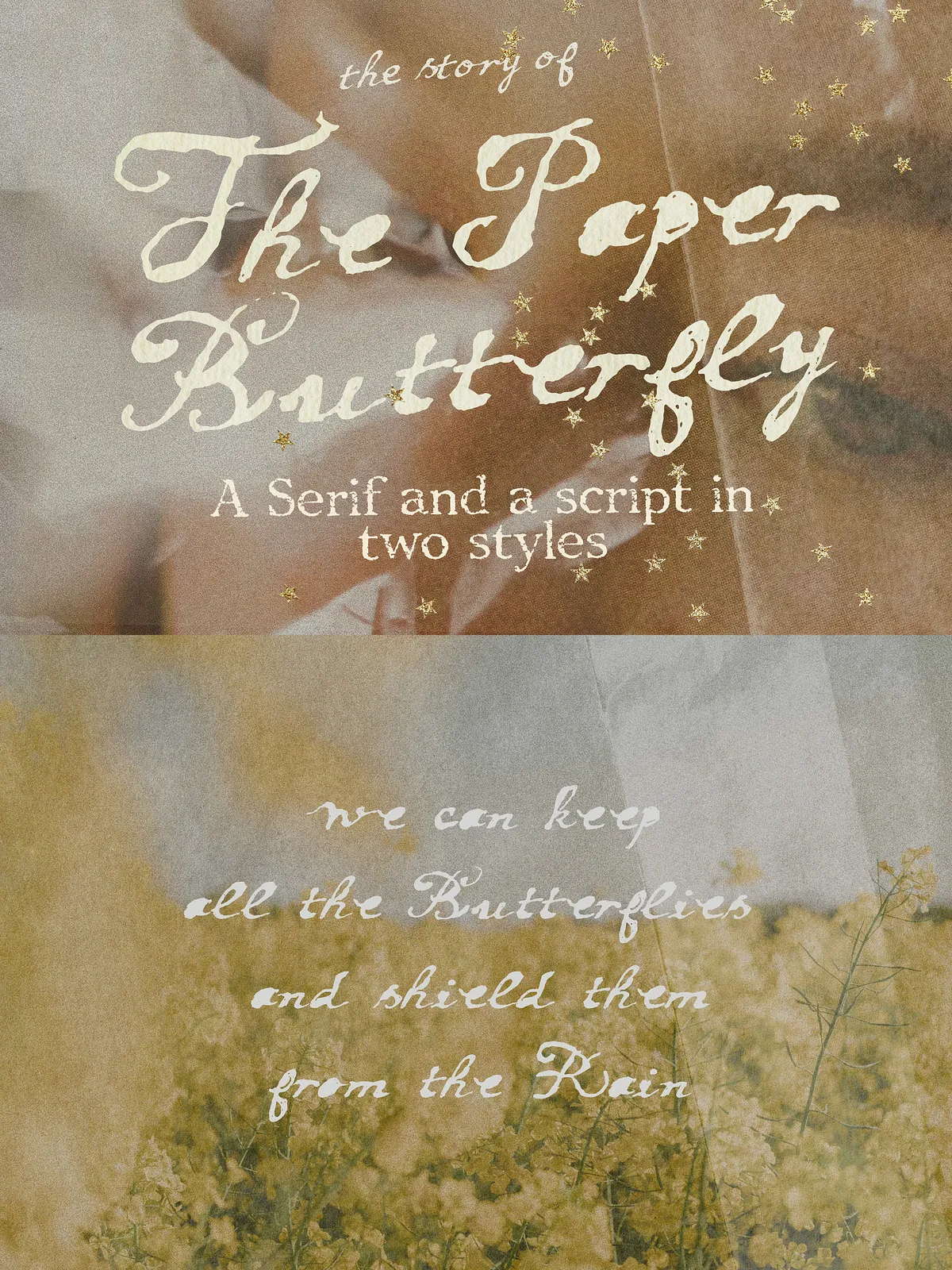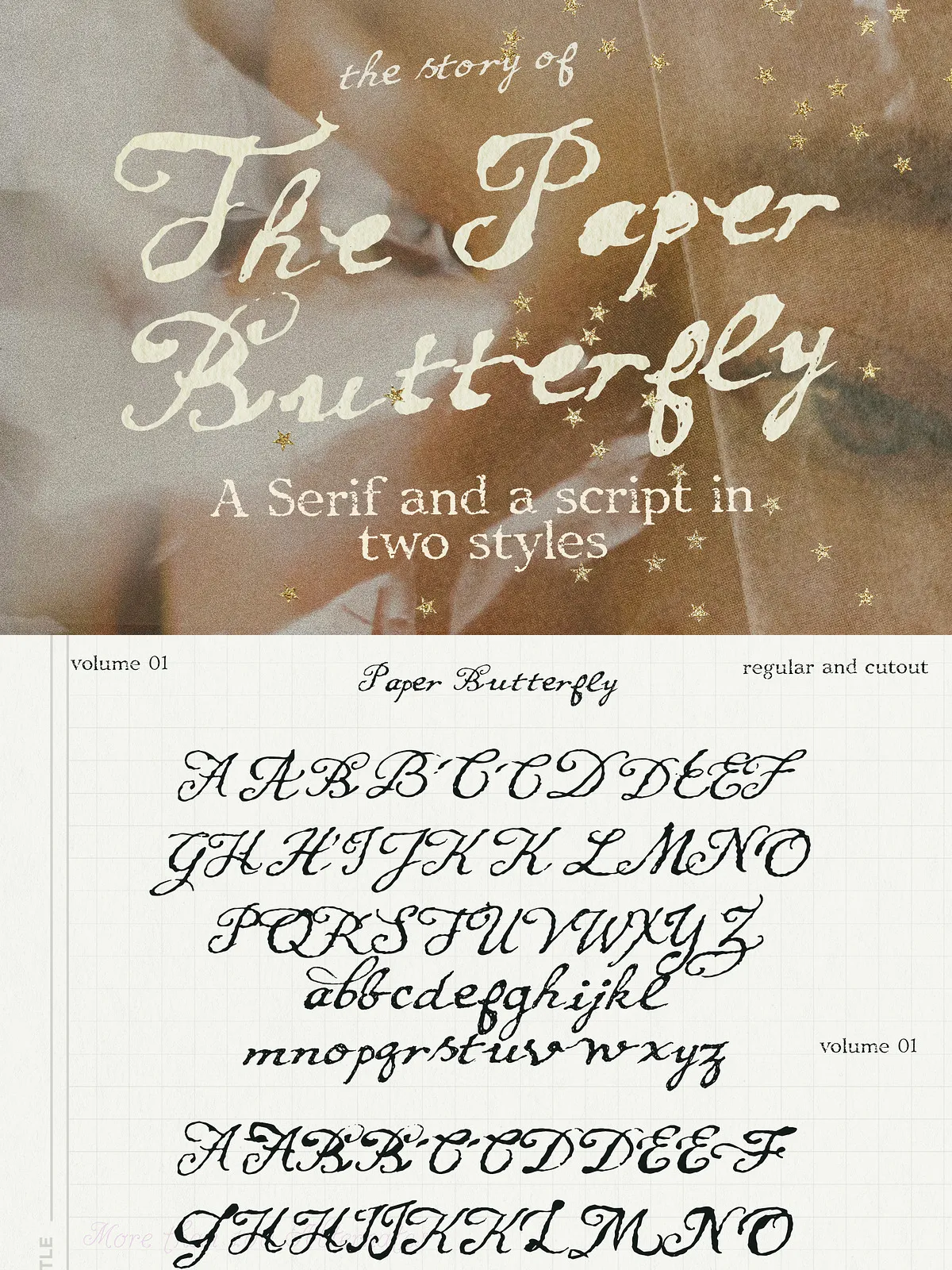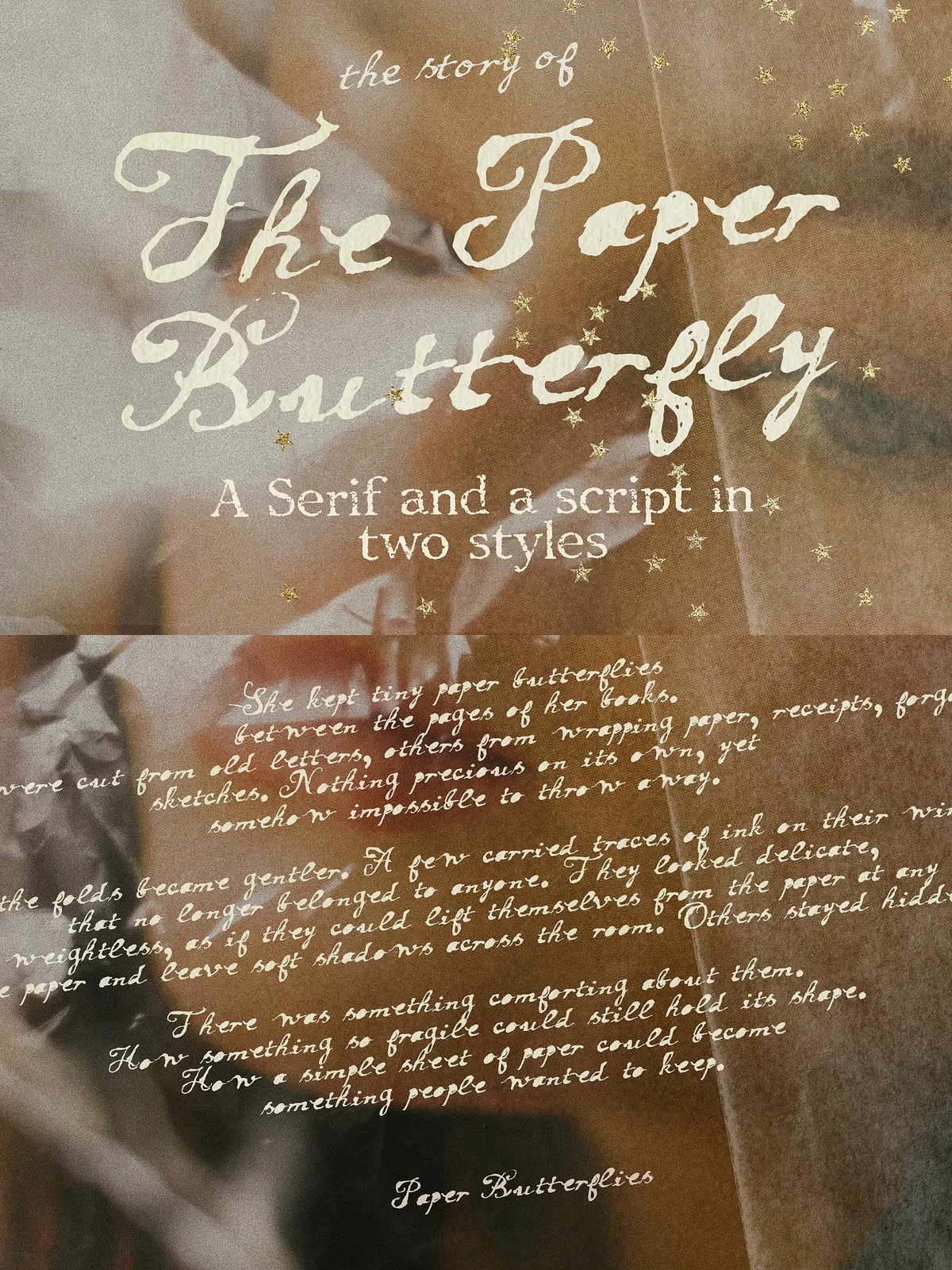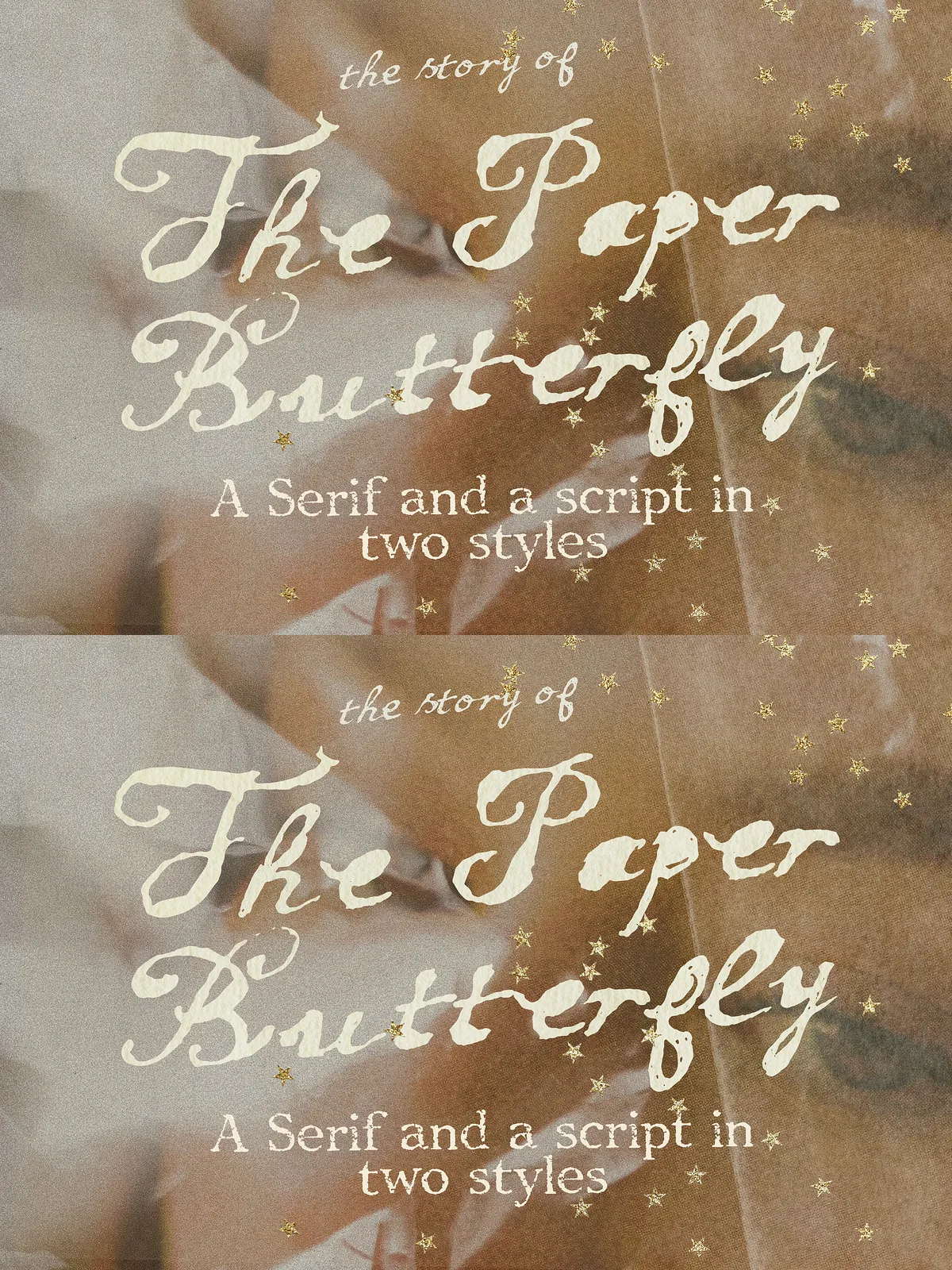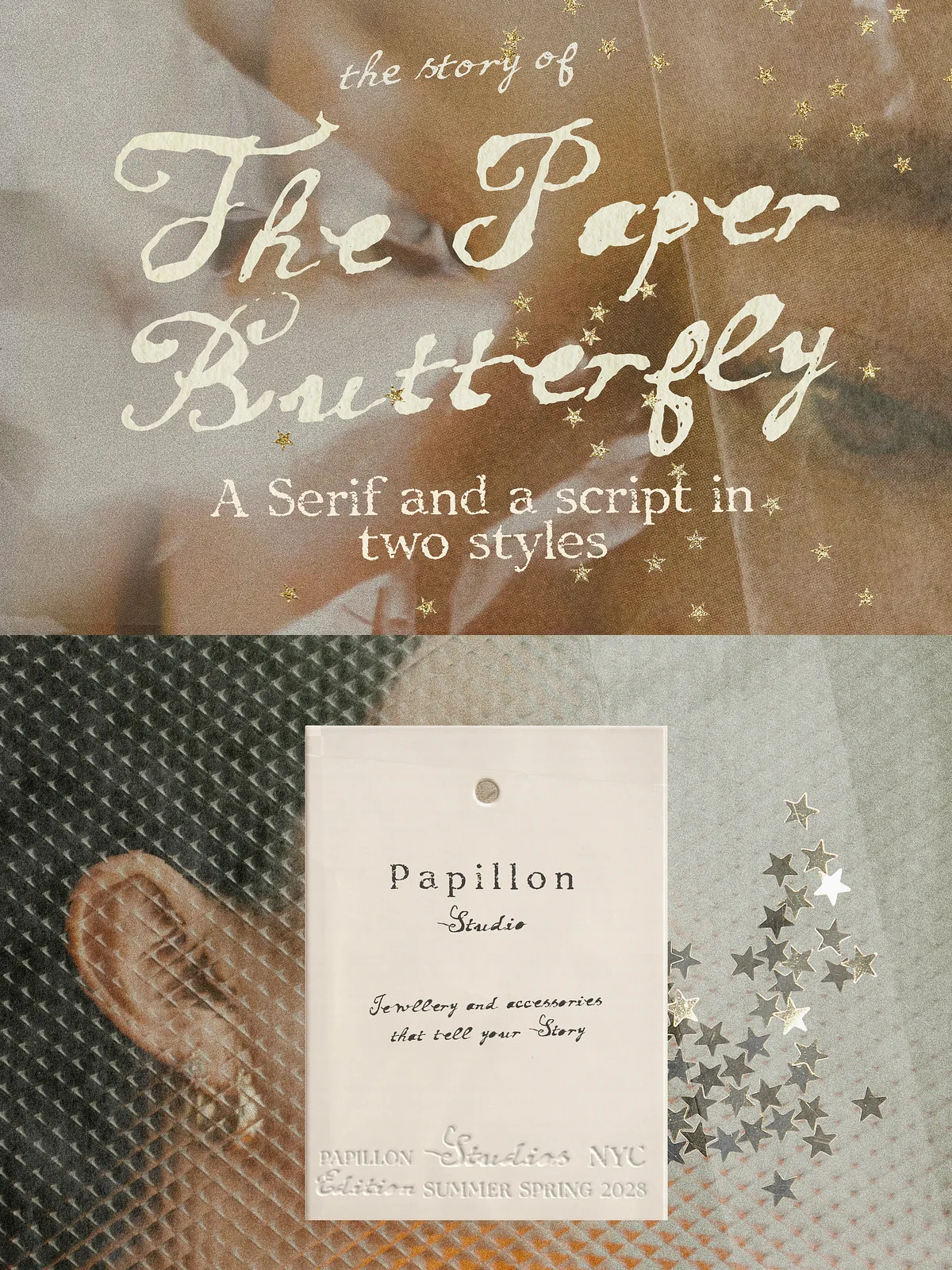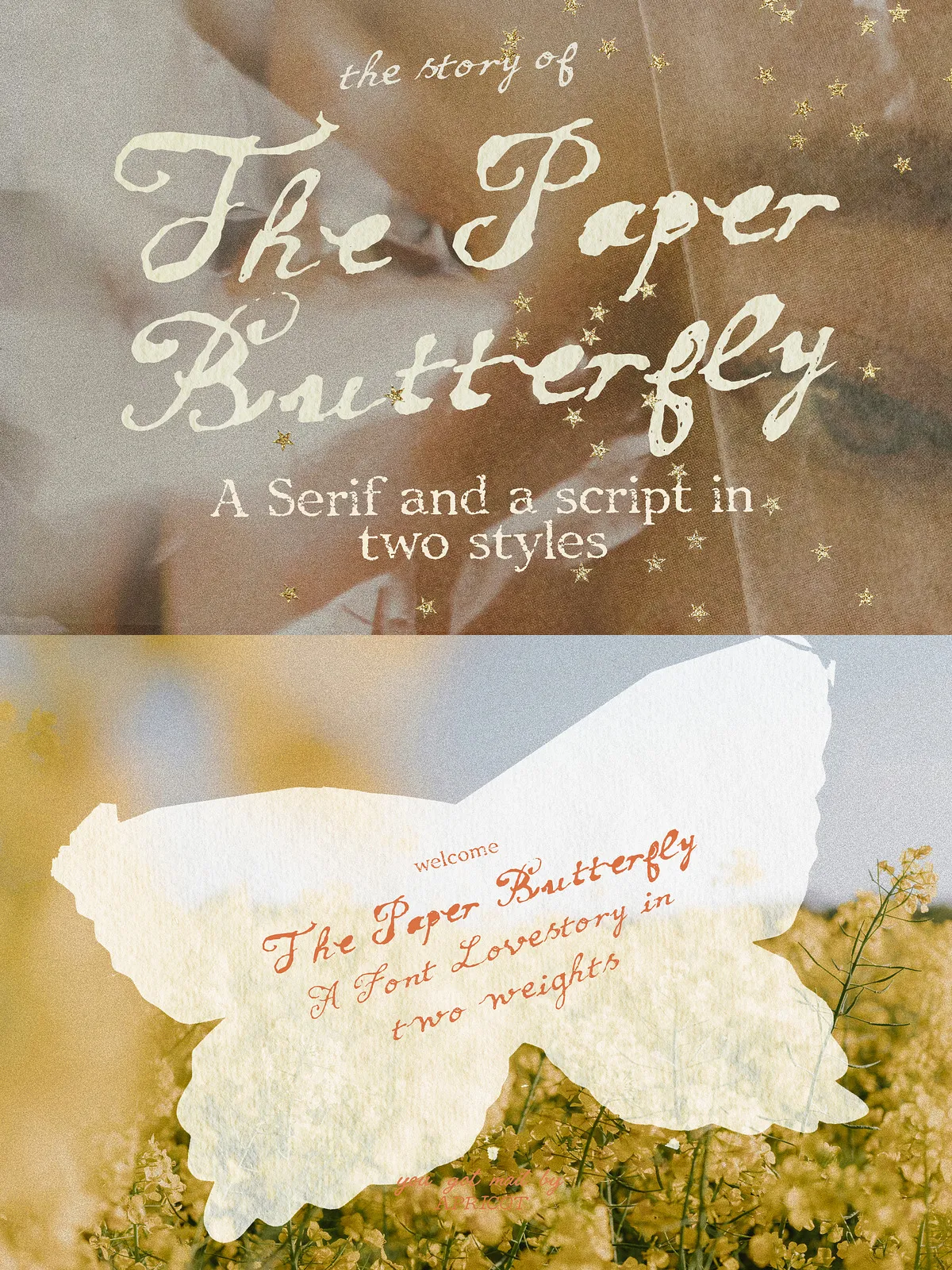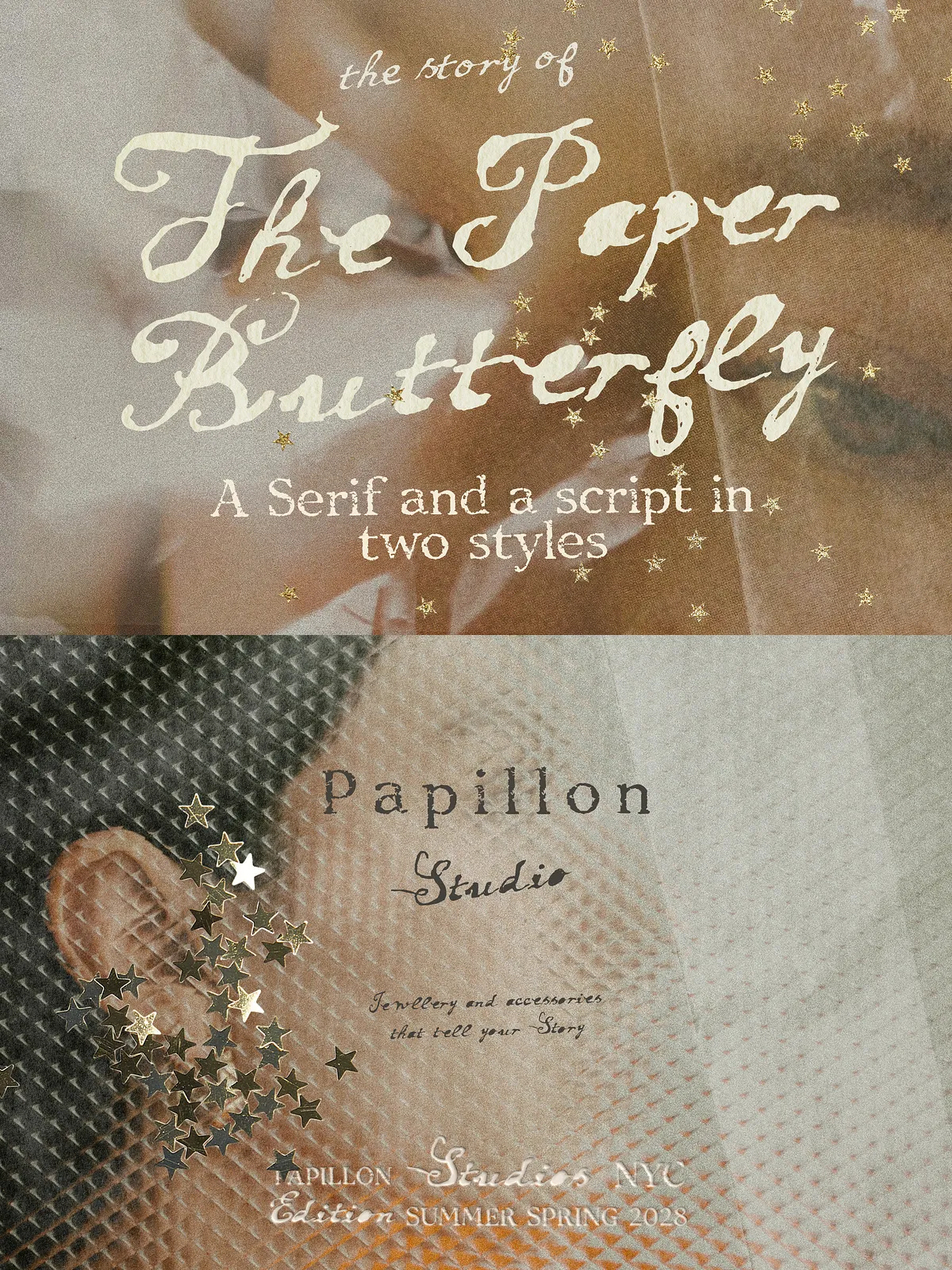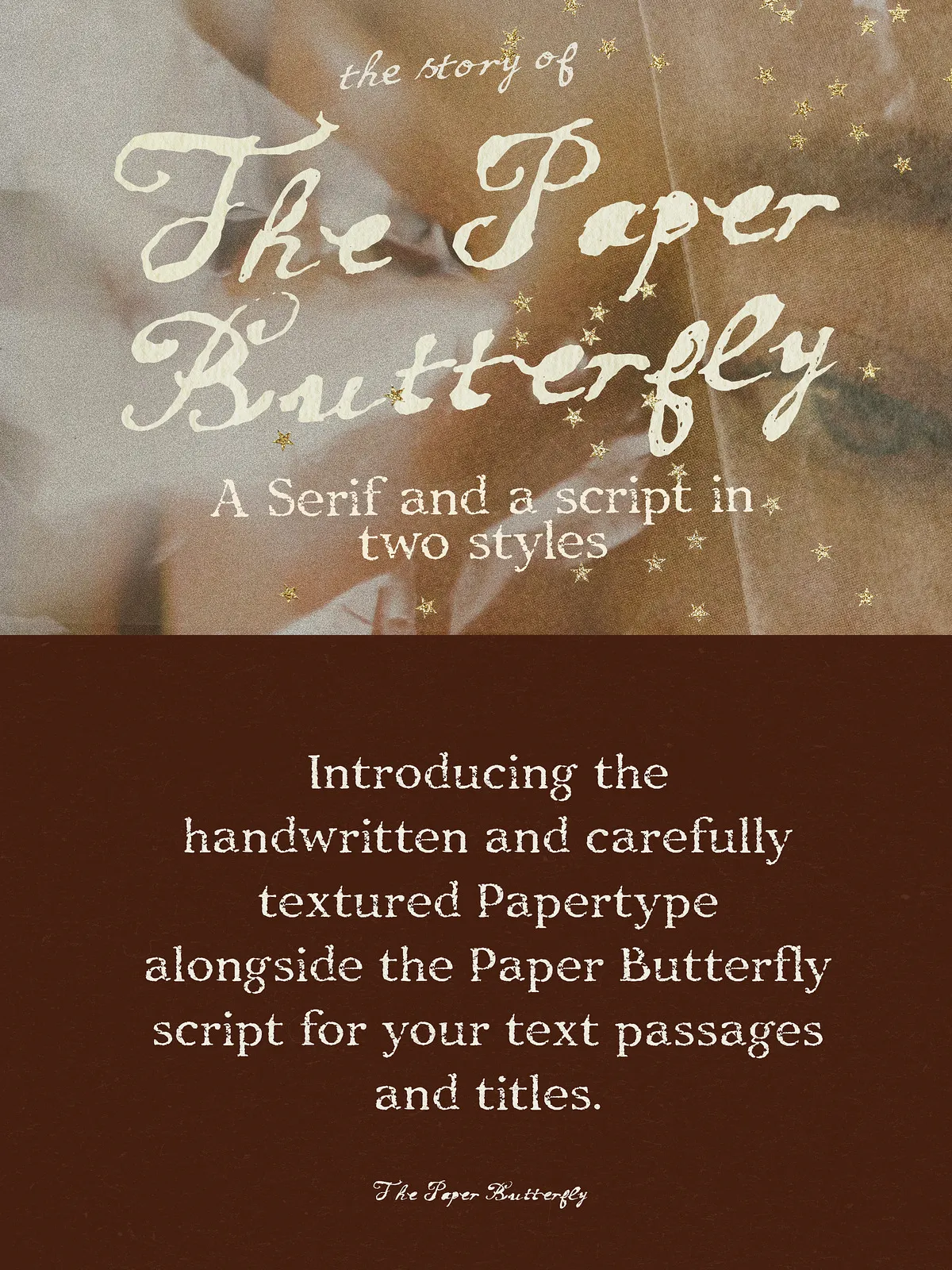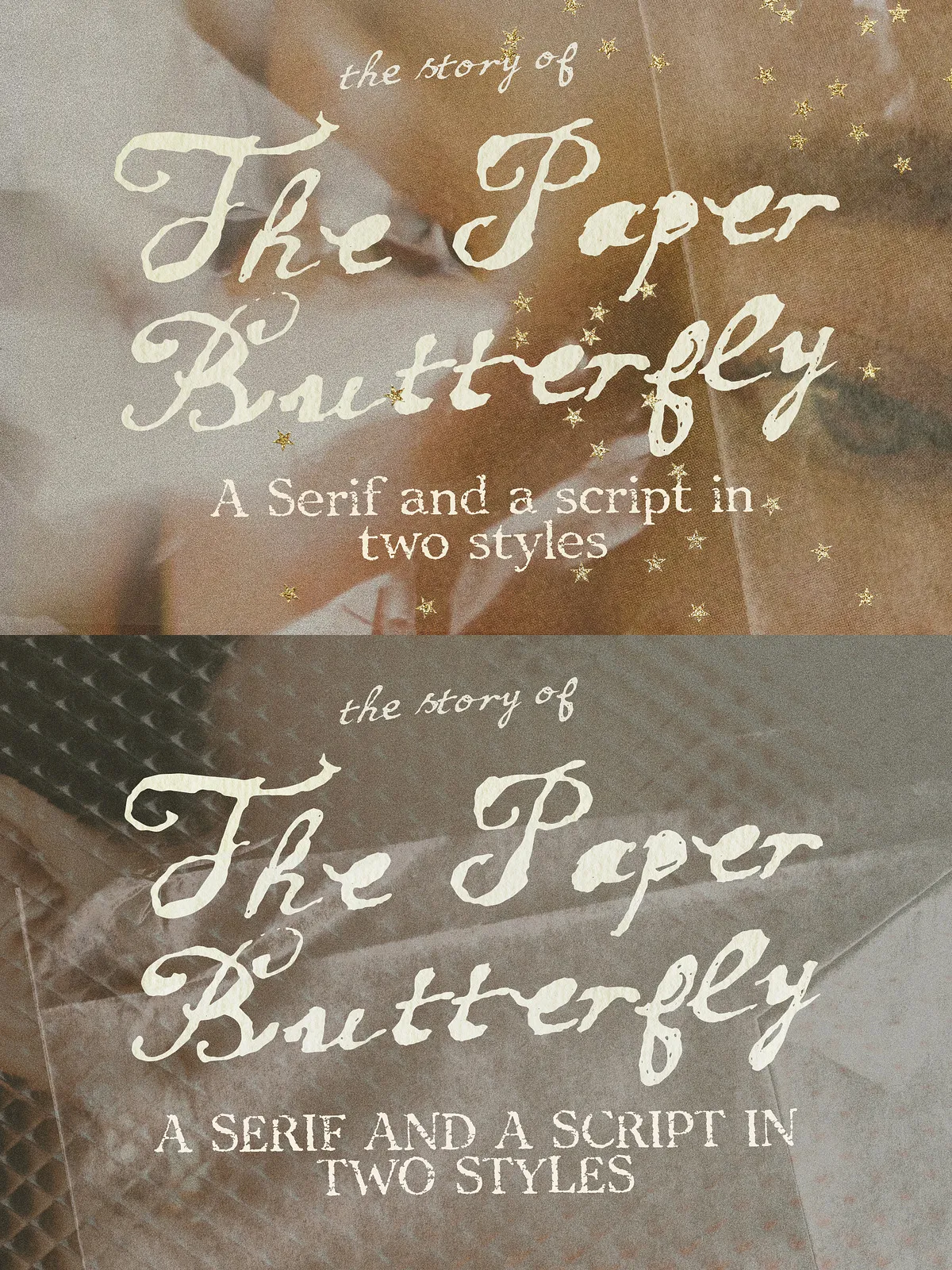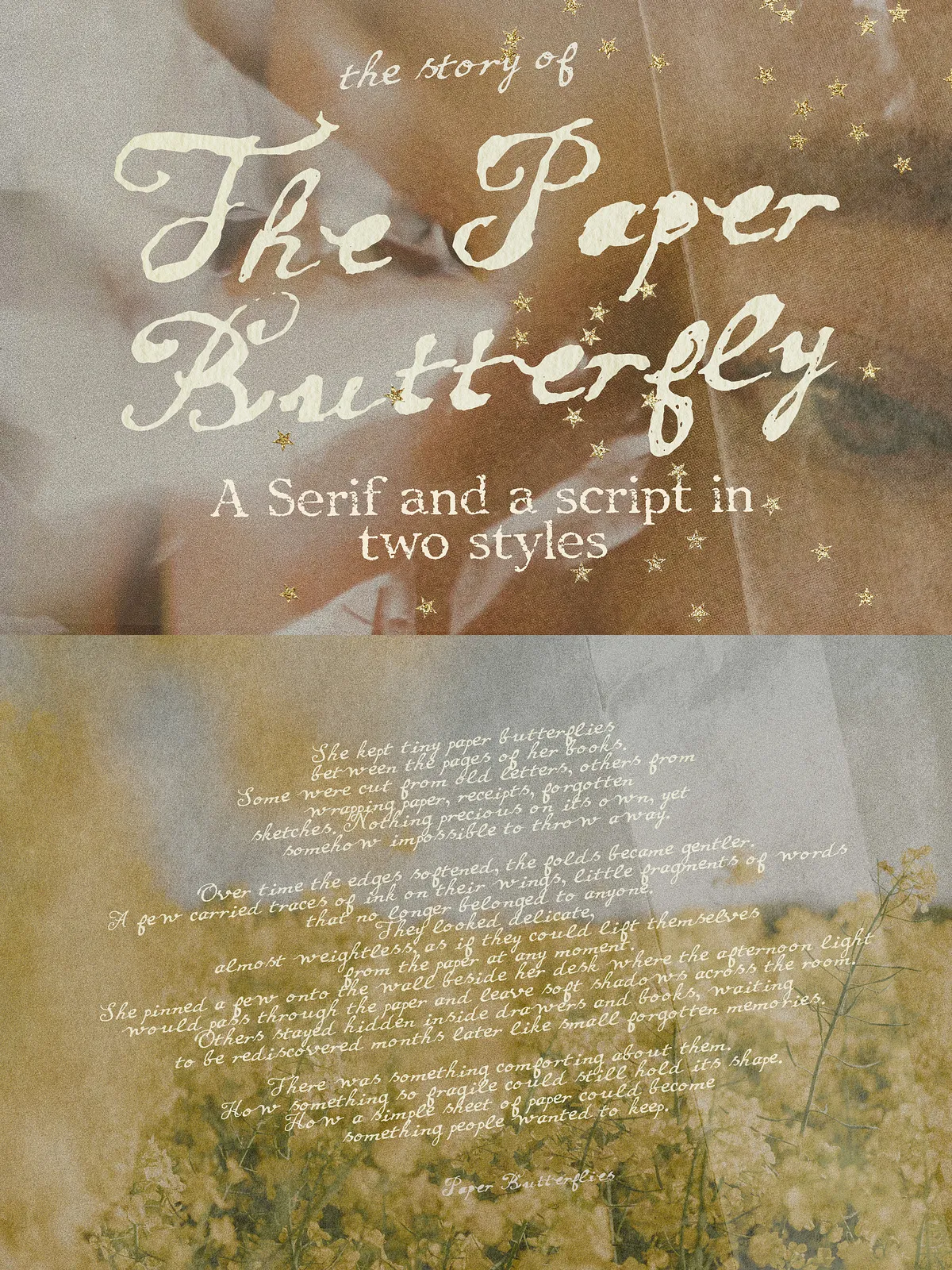
The Paper Butterfly comes as a whimsical font trio including a cursive script, a textured serif and a paper-textured script version. Inspired by paper folds and nostalgic paper cut-outs, this artistic typeface collection blends paper crafts with a charming and handmade feel.
The cursive font includes two different styles, one of them featuring a unique texture inspired by layered paper cut-outs, giving the lettering an organic, imperfect and extra human-made appearance.
Perfect for branding, wedding invitations, logo design, packaging, scrapbook projects, stationery, social media, posters and artistic typography, The Paper Butterfly brings a dreamy, playful and creative touch to every design. The combination of flowing script lettering, textured serif details and natural handwritten elements makes it ideal for whimsical branding and romantic visual storytelling.